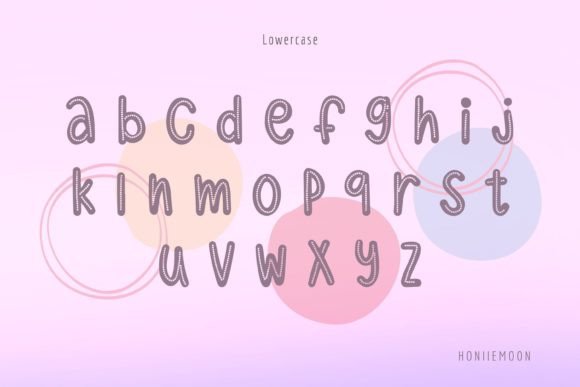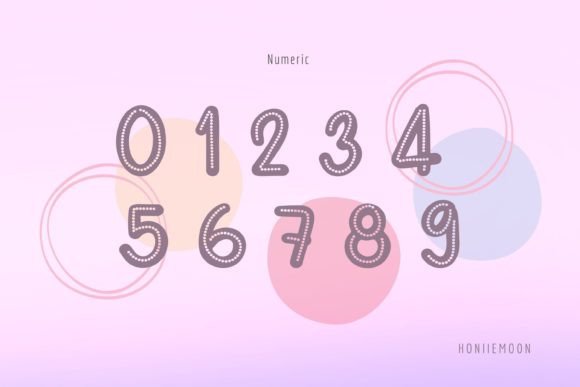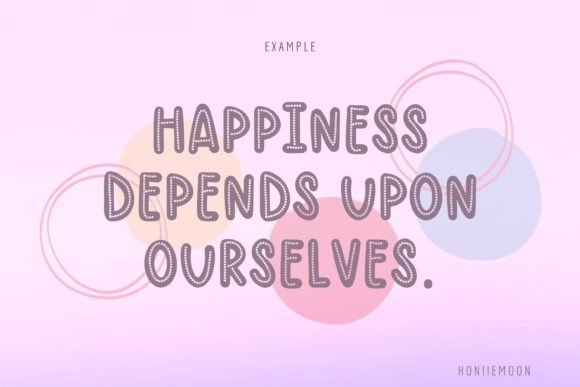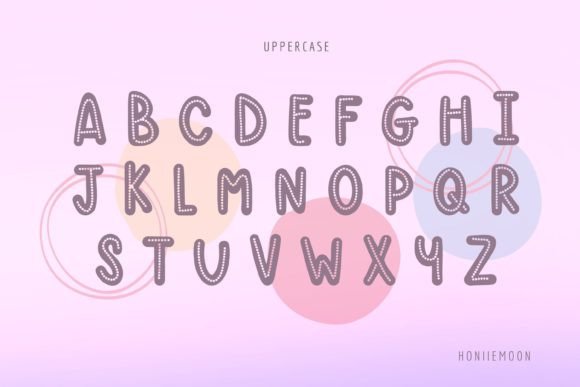
Introducing Dot Line Font: The Ultimate Display Font for Creative Designs
Are you tired of using the same old fonts for your designs? Look no further! Dot Line Font is here to revolutionize your creative projects with its cool and fun display font. This adorable font is sure to bring a touch of cuteness and jollity to your designs, making them stand out from the crowd.
What is Dot Line Font?
Dot Line Font is a unique and playful display font that is perfect for designers and crafters looking to add a pop of personality to their work. This font features a distinctive dot-line design that gives it a fun and lively feel. Whether you’re working on a logo, poster, or social media graphic, Dot Line Font is sure to make your design come alive!
Key Features of Dot Line Font
- Cool and Fun Design: Dot Line Font boasts a cool and fun design that is sure to capture the attention of your audience.
- Cute and Jolly: This font’s playful design makes it perfect for projects that require a touch of whimsy and personality.
- Colorful and Bold: Dot Line Font is a bold and colorful font that will add a splash of excitement to your designs.
- Easy to Read: Despite its playful design, Dot Line Font is easy to read, making it perfect for use in a variety of design projects.
Why Use Dot Line Font?
So, why should you use Dot Line Font for your design projects? Here are just a few reasons:
- Adds Personality to Your Designs: Dot Line Font is a great way to add a touch of personality to your designs and make them stand out from the crowd.
- Perfect for Creative Projects: This font is perfect for designers and crafters who are looking to add a playful touch to their work.
- Versatile: Dot Line Font can be used in a variety of design projects, from logos and posters to social media graphics and more.
How to Use Dot Line Font
Using Dot Line Font is easy! Here are a few tips to get you started:
- Pair with Other Fonts: Dot Line Font pairs well with other fonts, so feel free to get creative and experiment with different combinations.
- Use in Headlines and Titles: This font is perfect for use in headlines and titles, where its bold and playful design can really shine.
- Add Color: Dot Line Font comes in a range of colors, so don’t be afraid to add a pop of color to your designs.
Design Ideas Using Dot Line Font
Need some inspiration for your design projects? Here are a few ideas to get you started:
- Create a Fun Logo: Use Dot Line Font to create a fun and playful logo for your business or brand.
- Design a Colorful Poster: This font is perfect for use in posters, where its bold and colorful design can really stand out.
- Make a Statement with Social Media Graphics: Use Dot Line Font to create eye-catching social media graphics that are sure to grab the attention of your audience.
In conclusion, Dot Line Font is a cool and fun display font that is perfect for designers and crafters looking to add a touch of personality to their work. With its cute and jolly design, colorful and bold style, and easy-to-read format, this font is sure to enhance each of your designs and make them come alive! So why wait? Download Dot Line Font today and start creating!